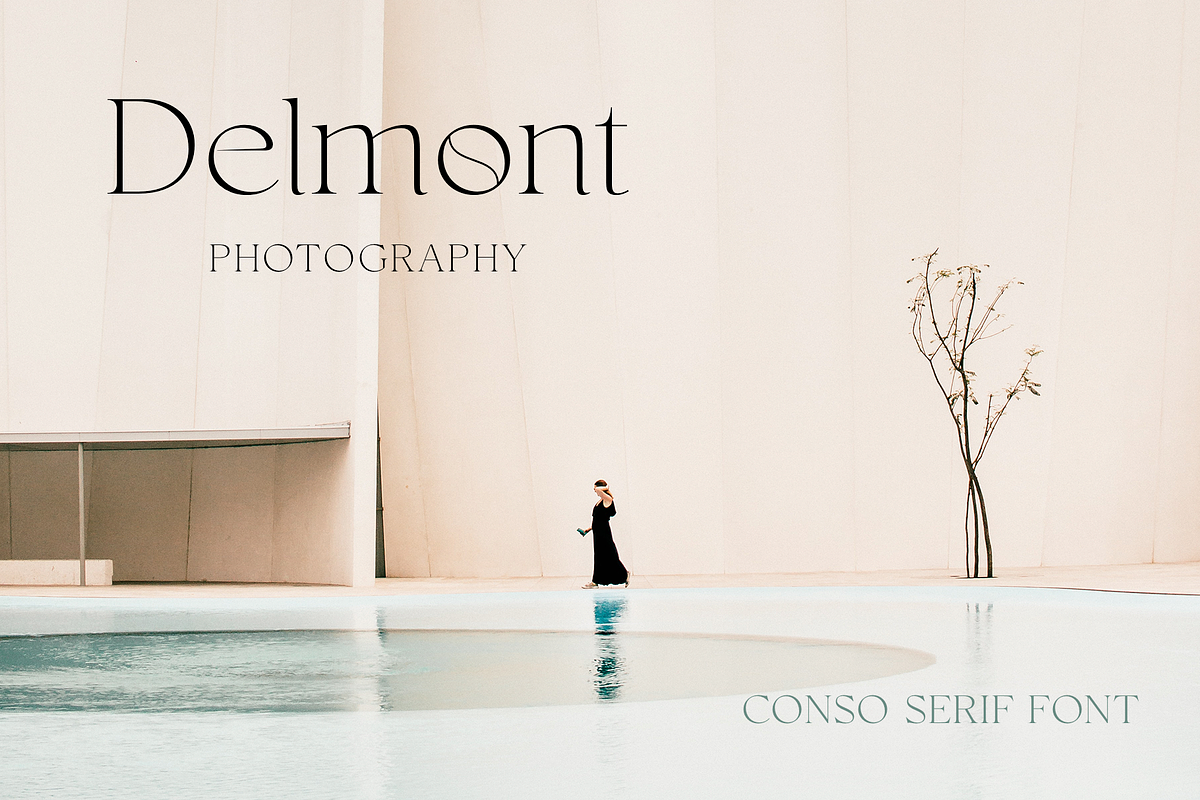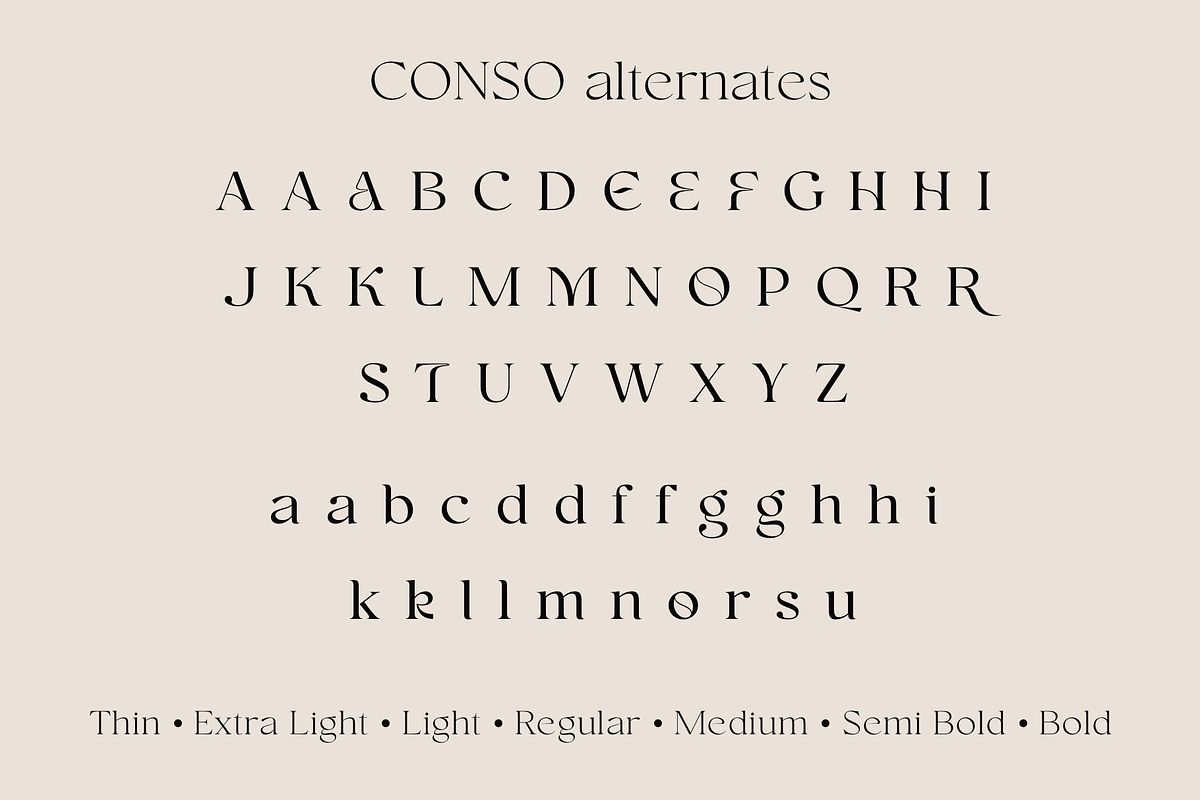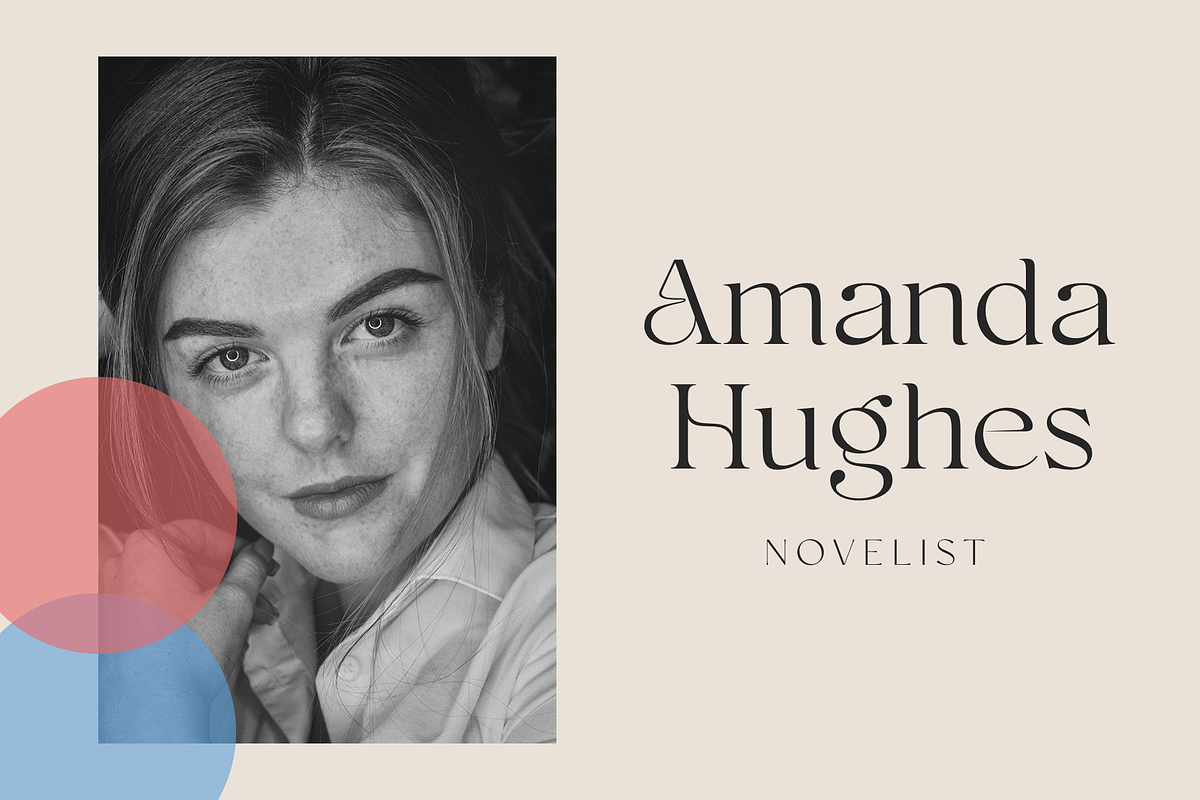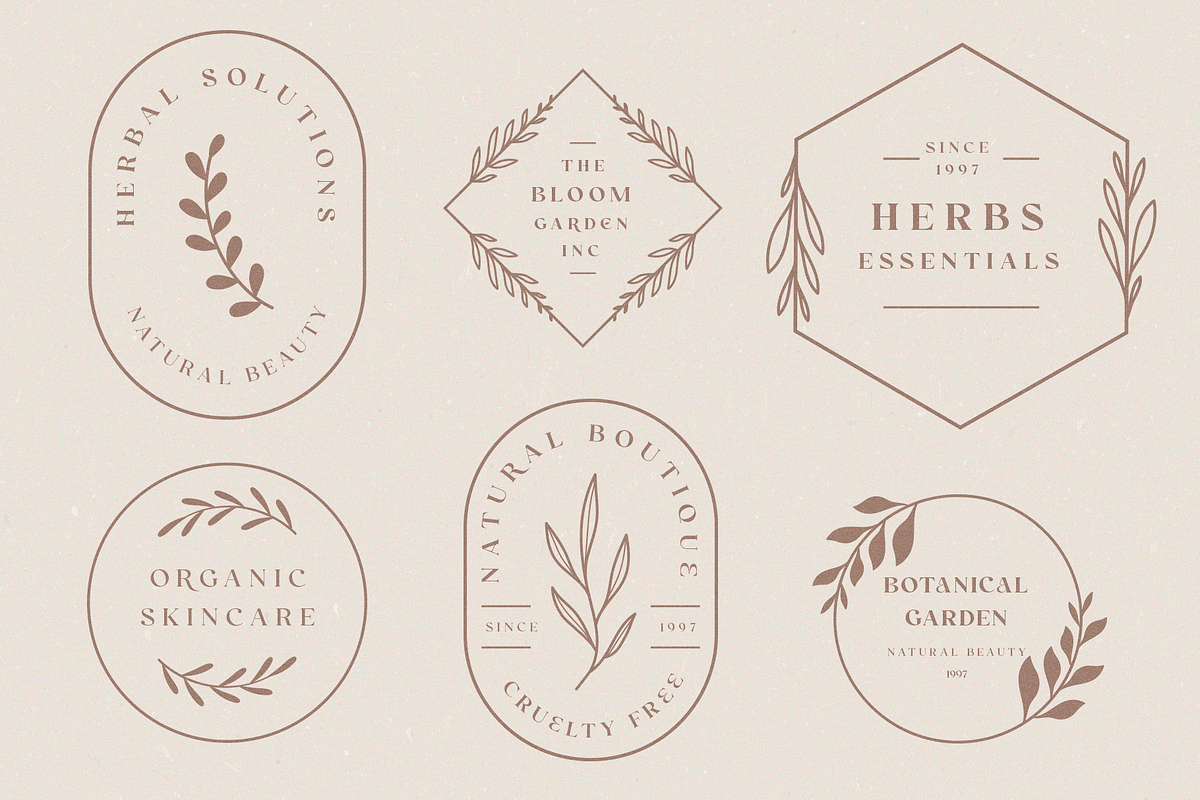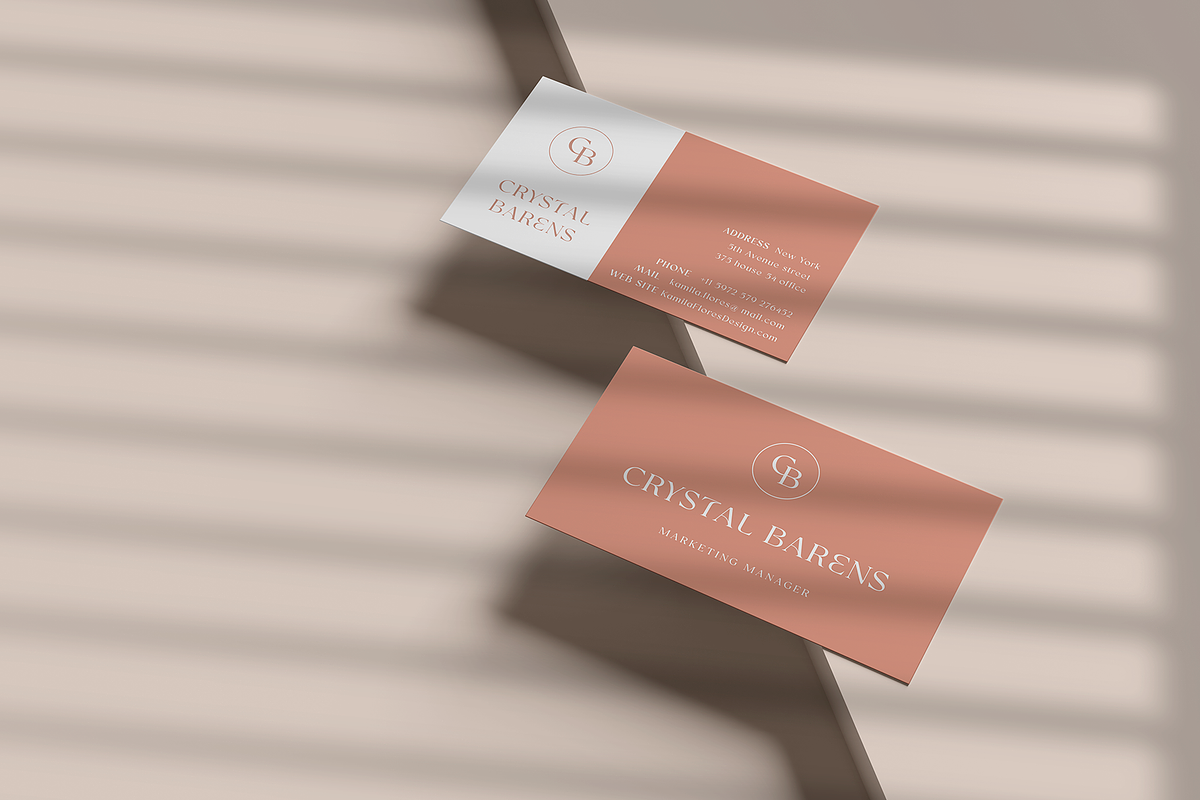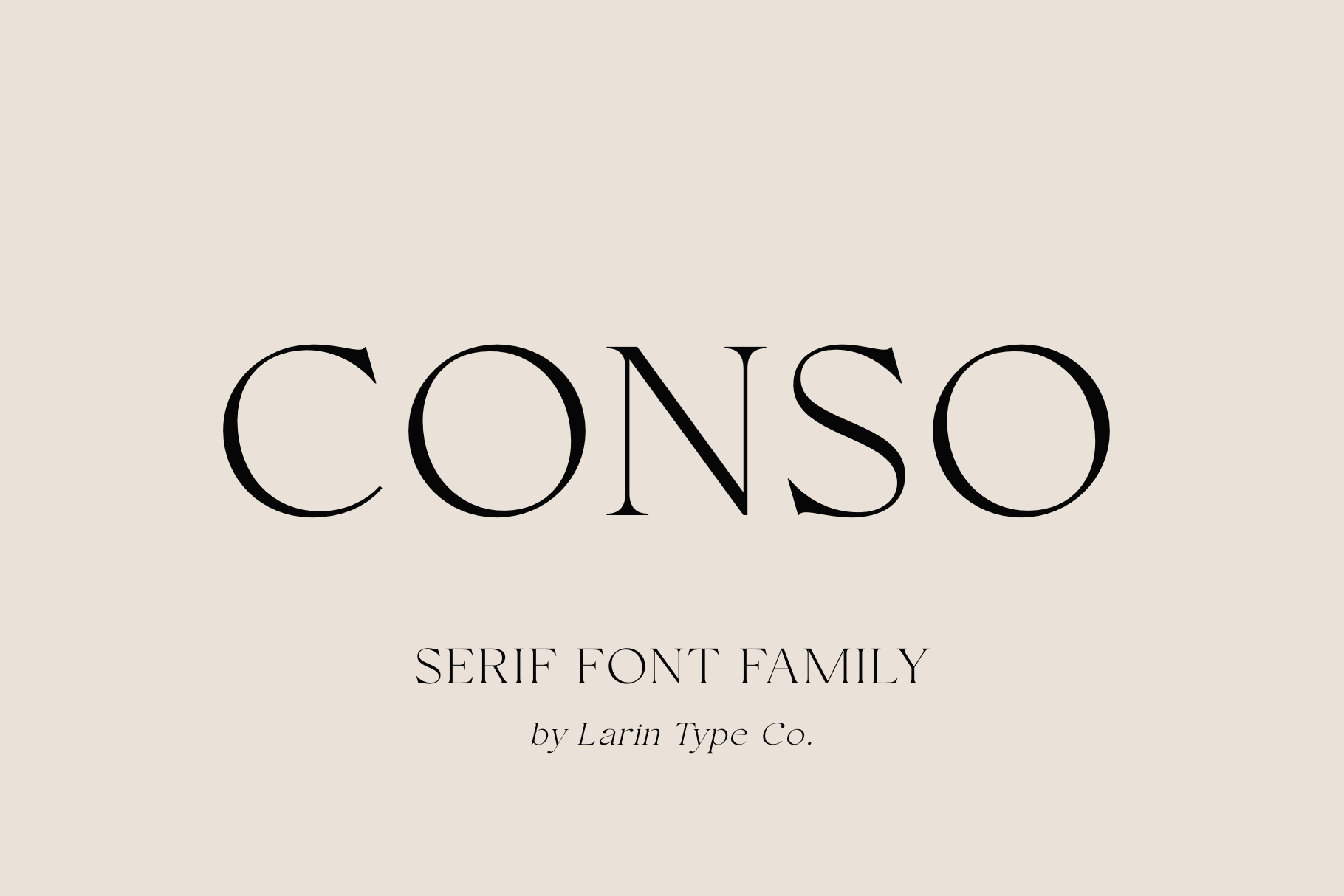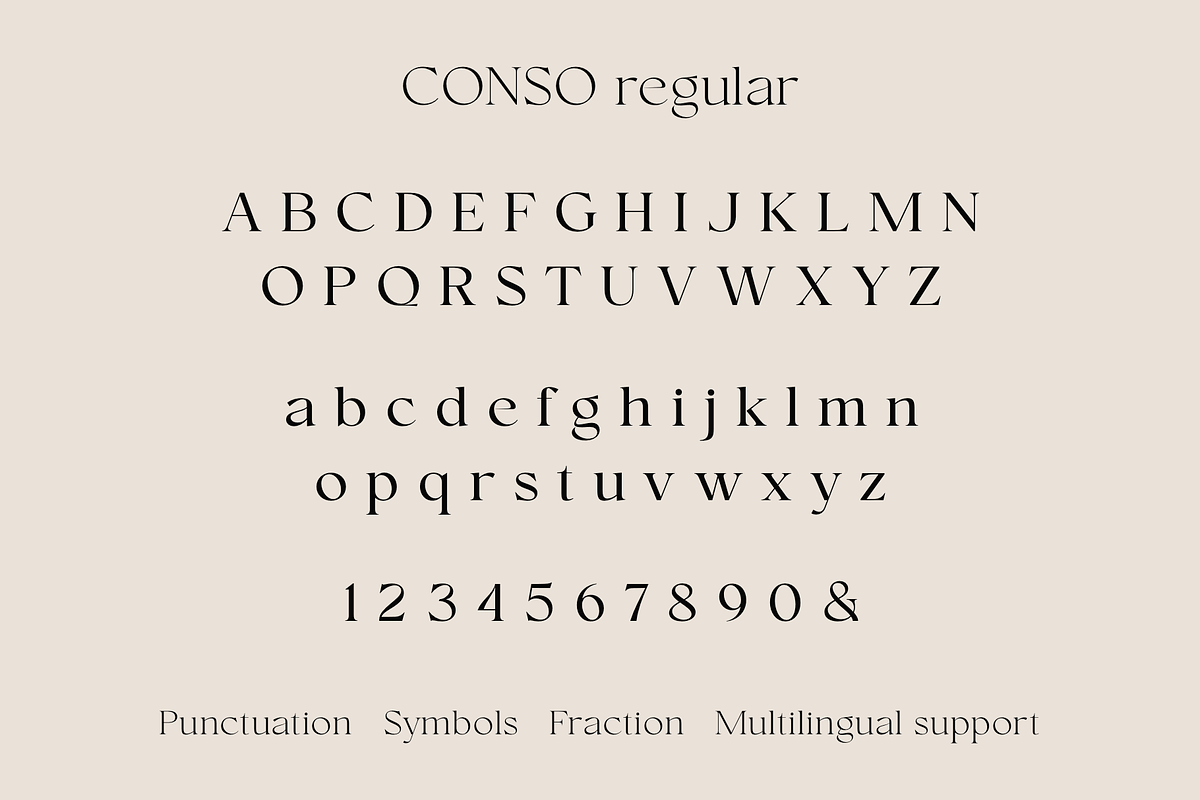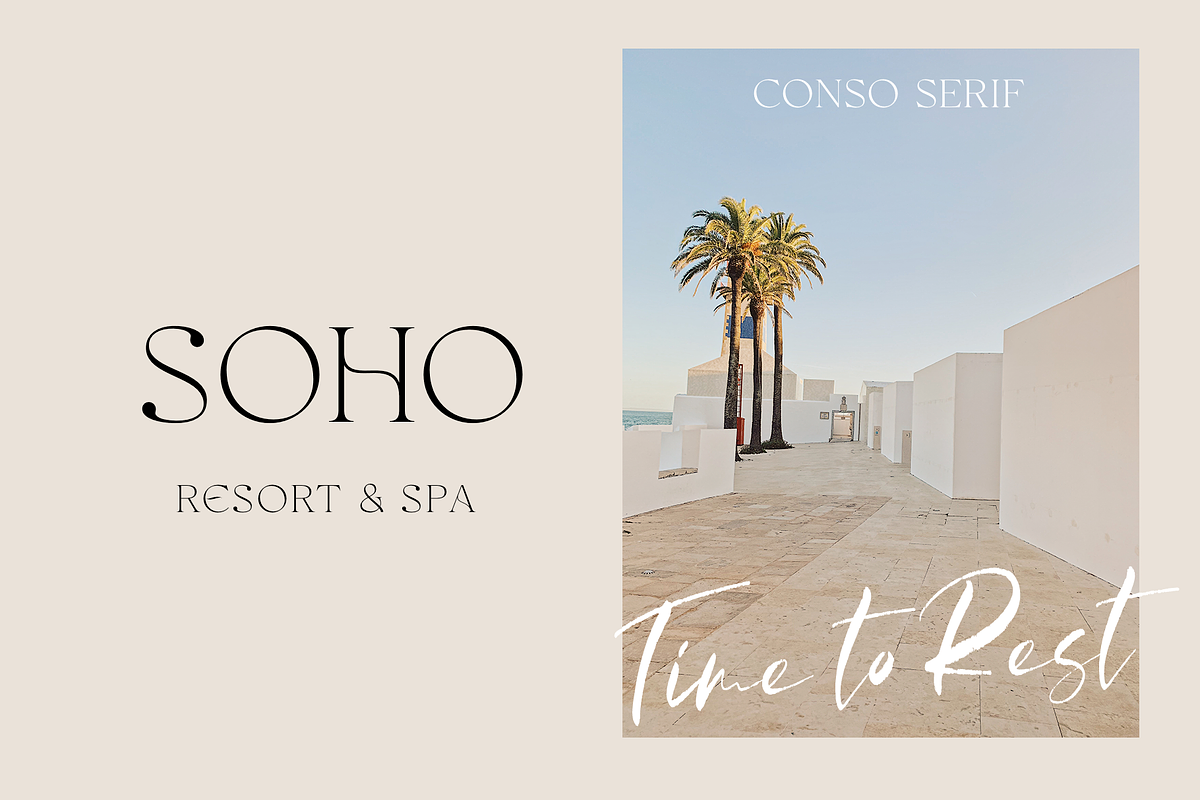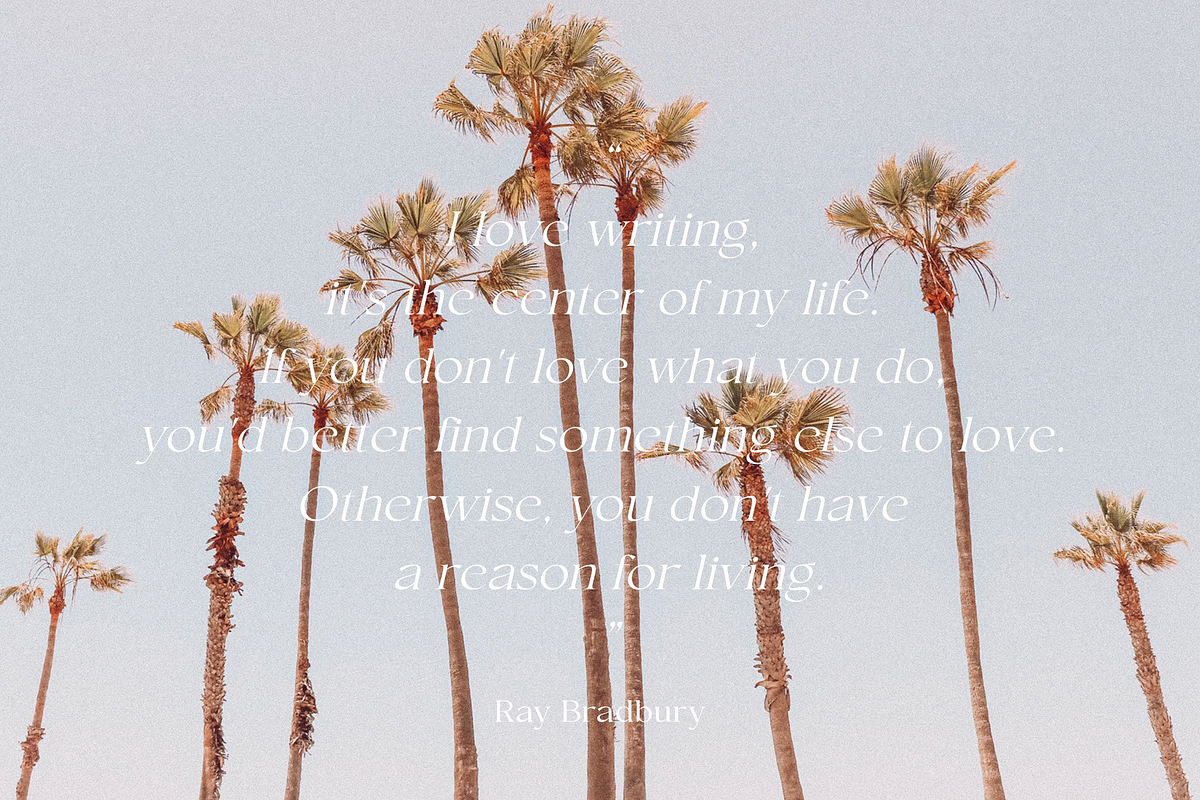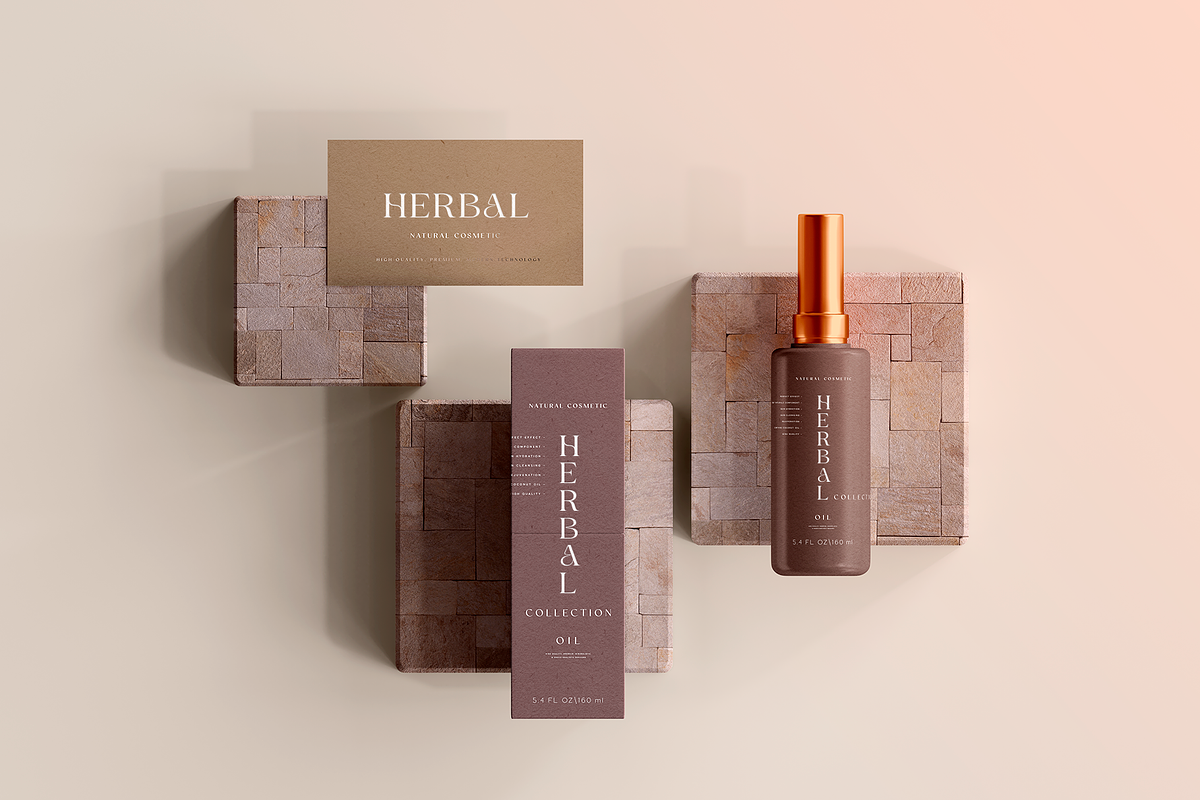
Conso Serif | Font Family
CONSO SERIF is an elegant, modern and contrast font family. It includes upright and Italic style, each of them has seven weights from thin to bold. This is a multi-purpose font that is perfect for any project, it is contrasted, modern and easy to read. With it, you can create logos, use in advertising, packaging, book covers and magazines, headings, descriptions and much more.
CONSO includes stylistic alternates with a teardrop-shaped tail for uppercase and lowercase, with them, you can change the style of your project and add personality to it and make it more stylized. This font is easy to use has OpenType features and all characters in this font have PUA encoding.
Full alphabet with Uppercase and Lowercase A-z
Numbers, fractions
Punctuation and symbols
Alternates for uppercase
Alternates for lowercase